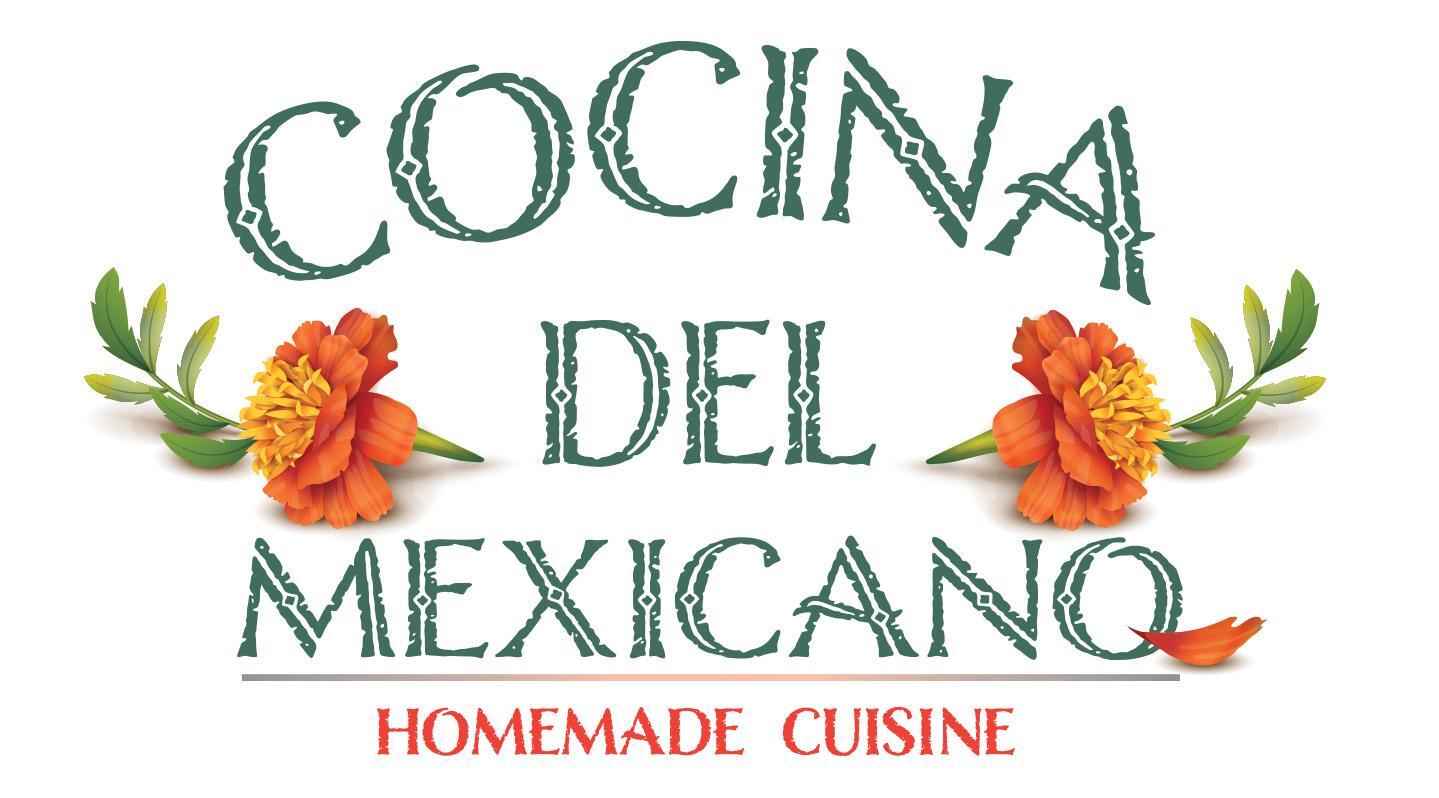
This Beautiful Latin-style font I need for a new menu (Cocina del Mexicano)
This is a difficult font to find (both the green and red fonts). I need to use this in multiple locations on a menu. Any help would be much appreciated!